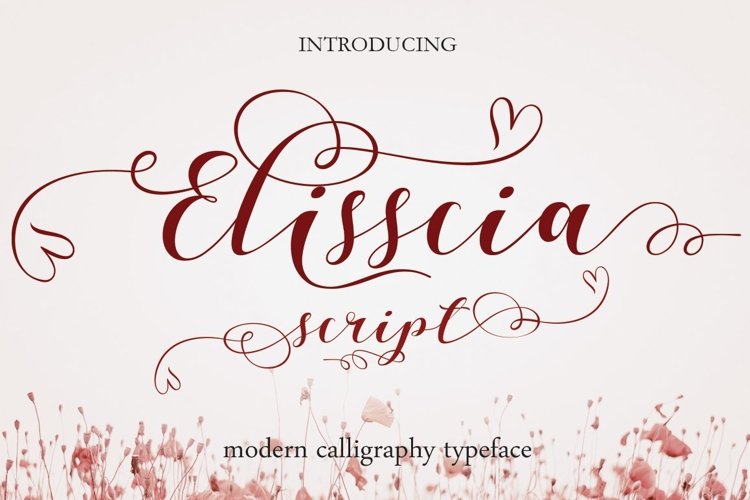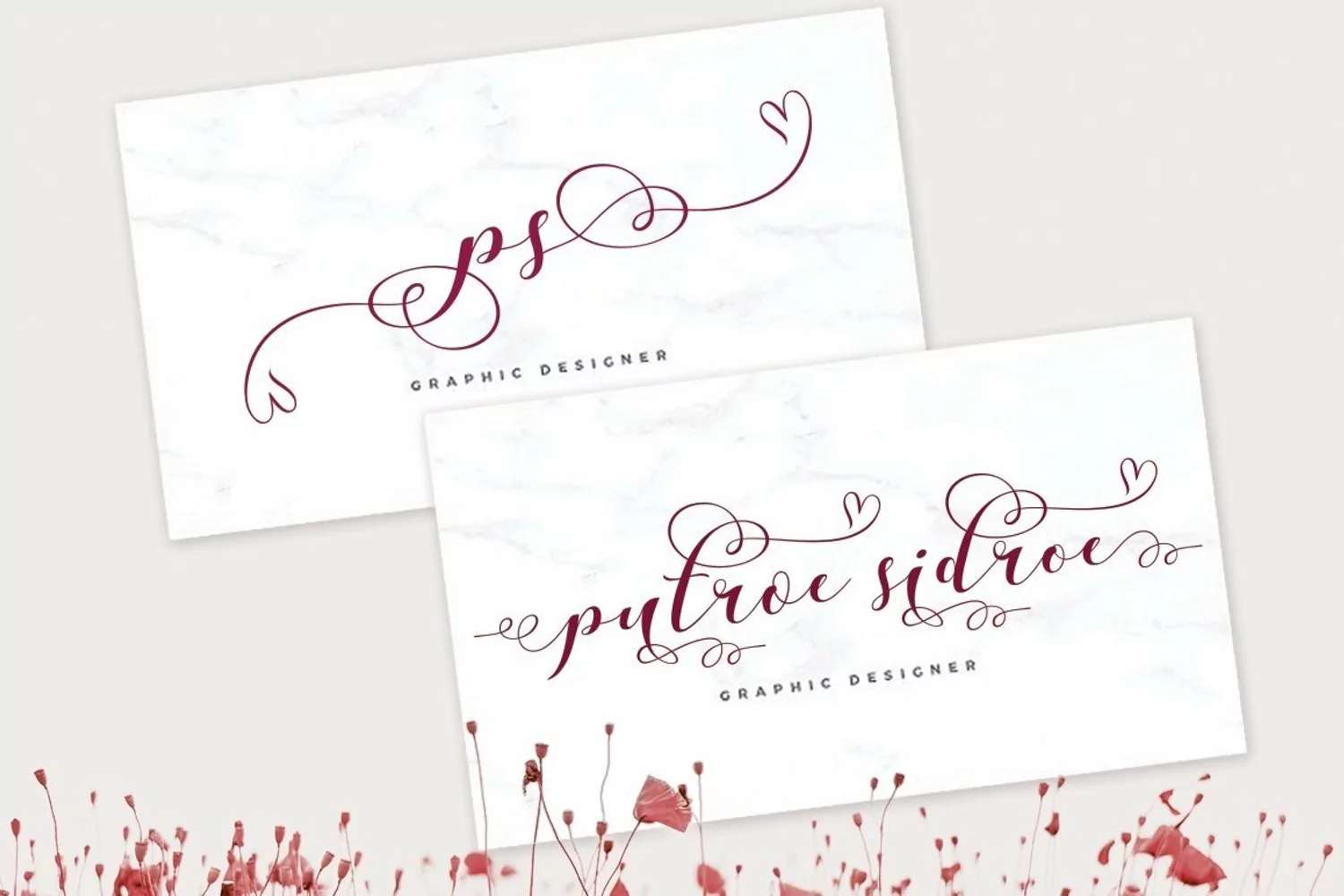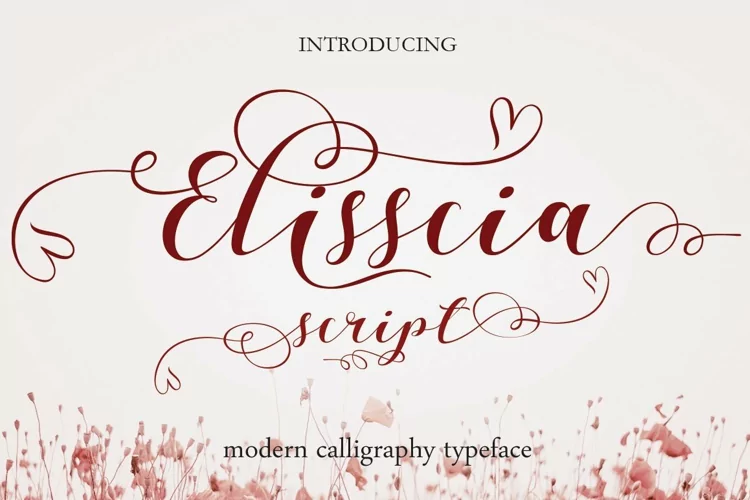
Web Font Elisscia Script
Elisscia Script : a very beautiful script typeface Modern, Romantic and equipped wi fine lines to enhance the look is perfect for various purposes. Like titles, signatures, logos, correspondence, wedding invitations, letterheads, nameplate, labels, bulletins, posters, badges, Branding, Greeting Cards, etc.
Elisscia Script : features 697 glyphs and has given PUA unicode (specially coded fonts), can be accessed easily with the character map, can be accessed in full by the lovers of letters or artisans to increase career in the design world.